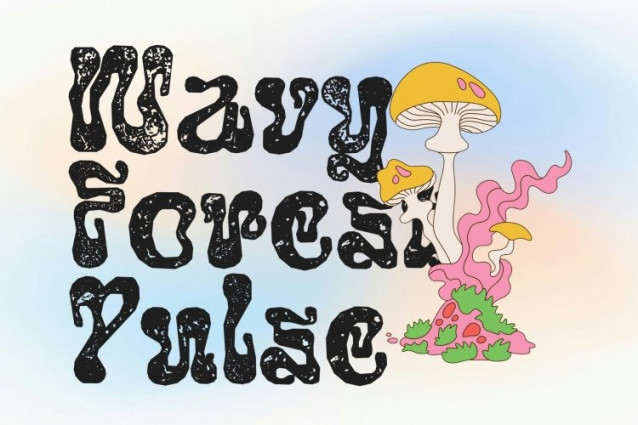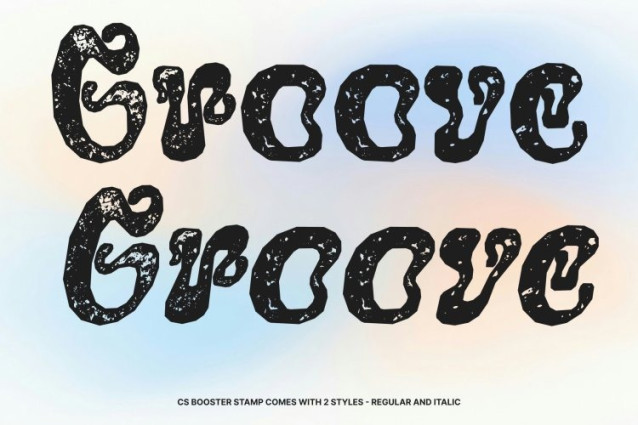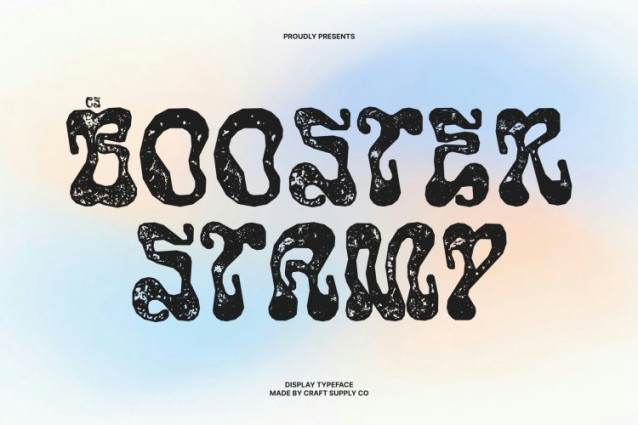
CS Booster Stamp Font
CS Booster Stamp Font – This transforms the smooth, fluid aesthetic of the original into a tactile visual experience with a subtle stamped texture. Its organic, ever-moving letterforms retain their liquid-inspired flexibility, while gentle ink variations and softly irregular edges introduce a handcrafted, print-like depth. The result is a display font that feels both futuristic and artistically raw.
Wave Distortion with Gritty Character
The signature wave-like distortions and melting effects remain bold and expressive, now enhanced by a textured finish that adds contrast and dimension. The stamped treatment gives the flowing shapes a slightly industrial and experimental tone, creating a unique balance between glossy futurism and analog imperfection.
Dynamic, Bold, and Visually Striking
While the original design carries a sleek, polished energy, introduces a more tactile and rebellious personality. The bold yet soft letterforms maintain clarity, ensuring readability while delivering a high-impact, unconventional aesthetic that stands out across both digital and print applications.
Perfect for Experimental and High-Energy Projects
This is ideal for innovative branding, music festival posters, gaming visuals, tech-inspired graphics, and cutting-edge creative campaigns. By merging liquid motion with a subtle vintage-stamped texture, it offers a powerful typographic voice that feels energetic, expressive, and unmistakably original.